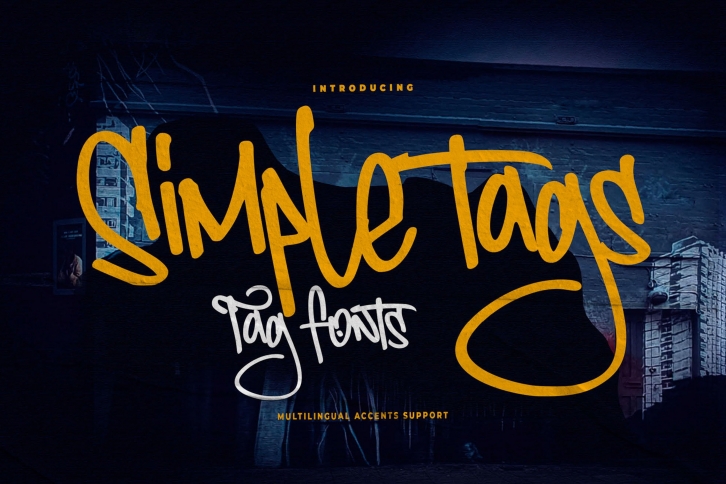
Simple Tags is a trendy and unique font with an authentic style. It was designed by Gassstype Studio and it's a great choice for creative people who need such a font. It was released on August 4, 2022 and the file size is 9.84 MB. Simple Tags will add an organic vibe to any design idea!